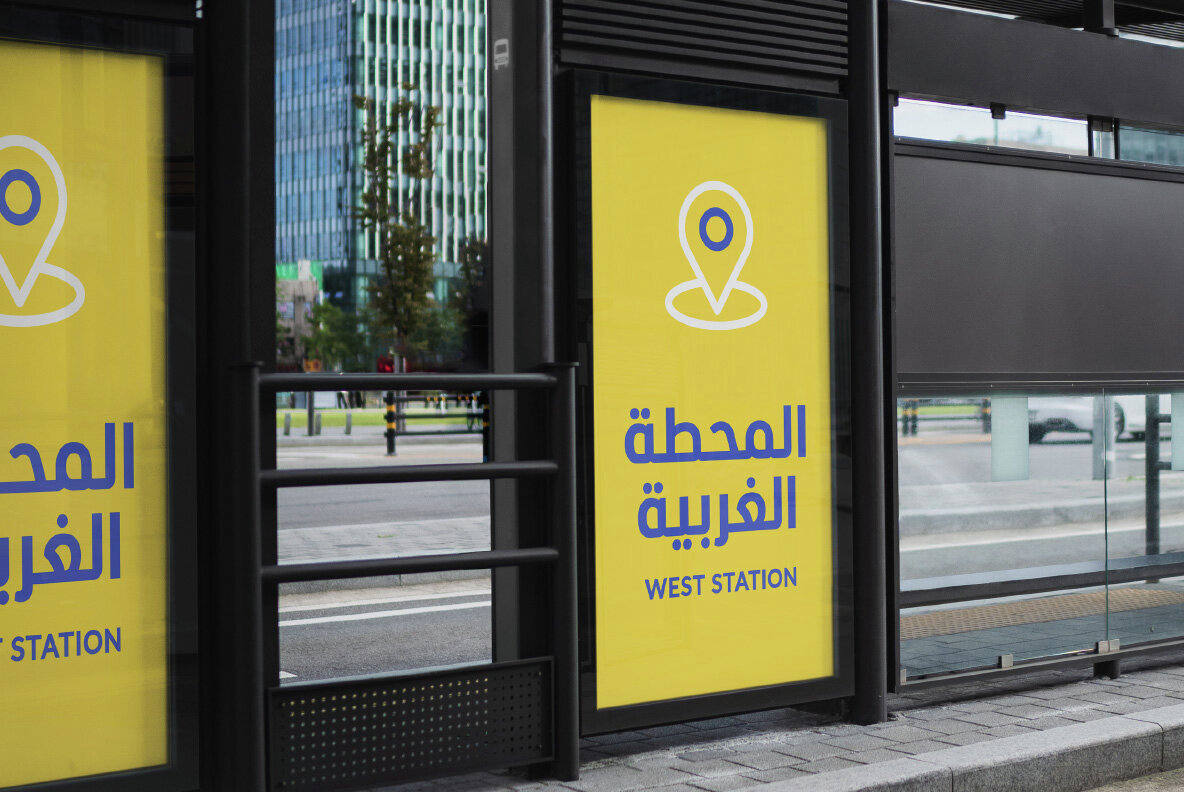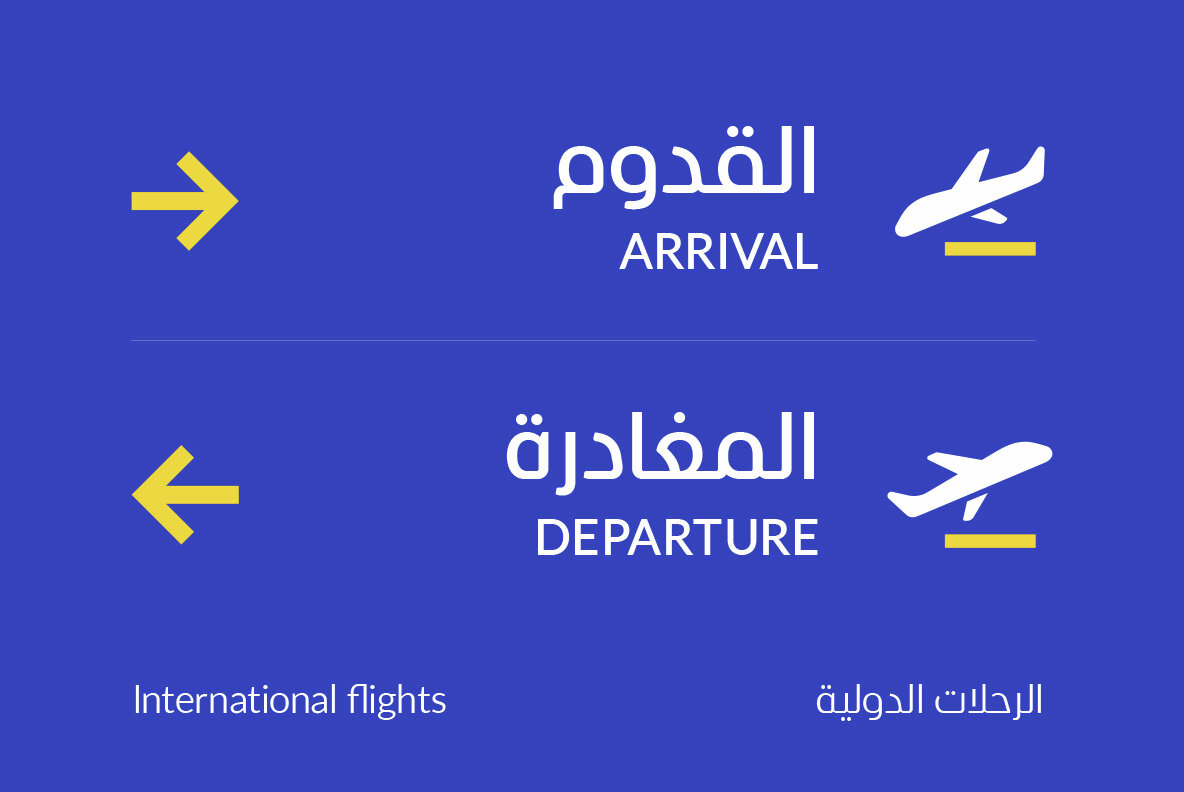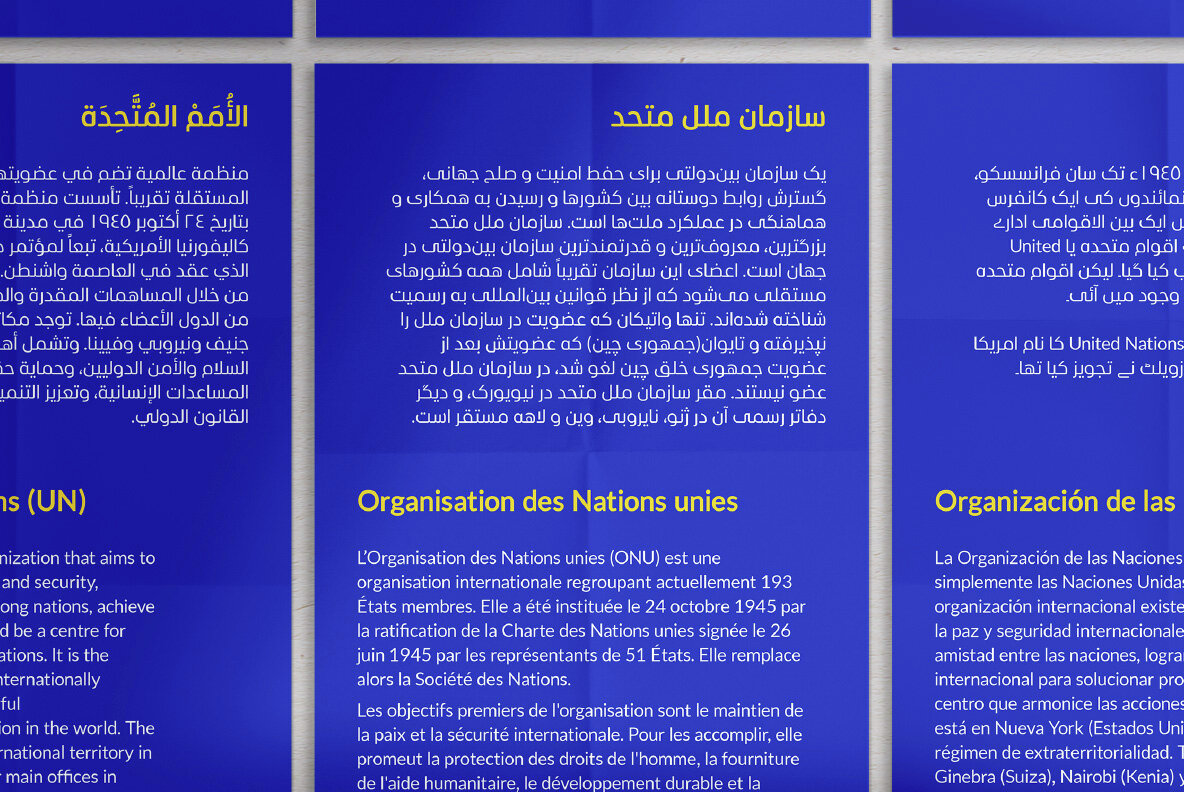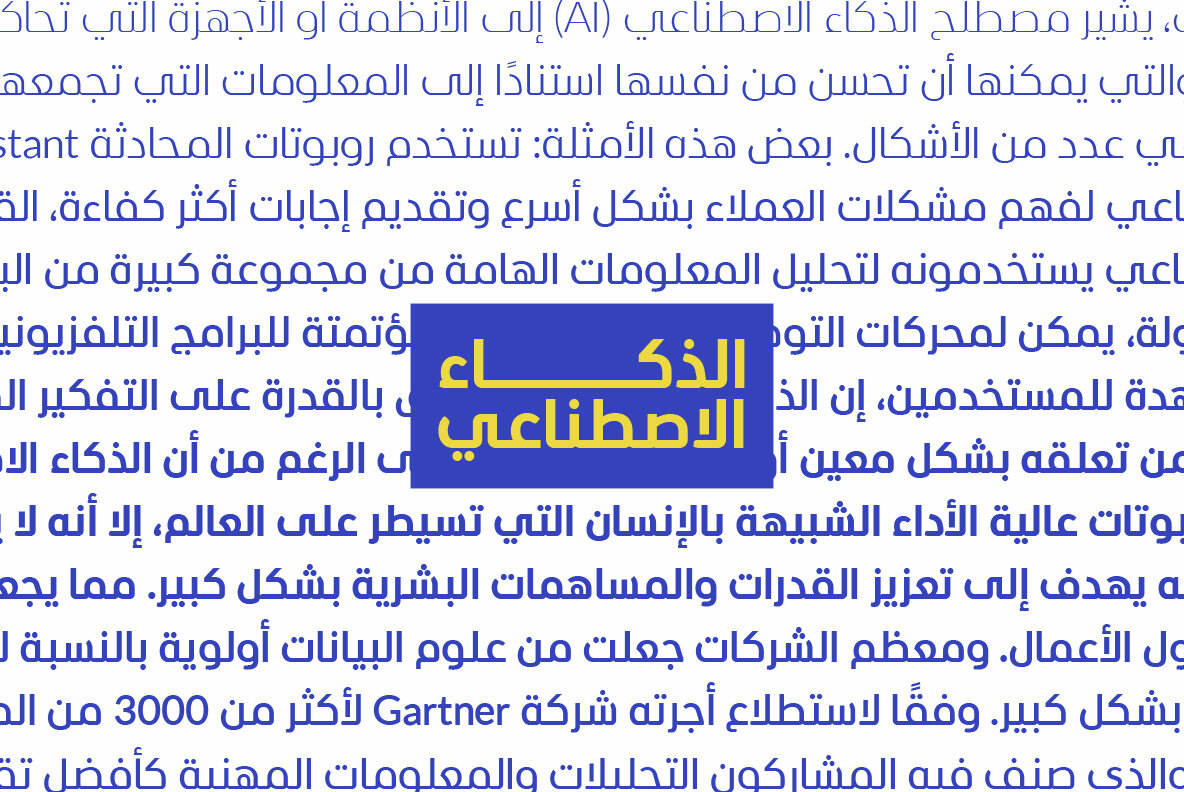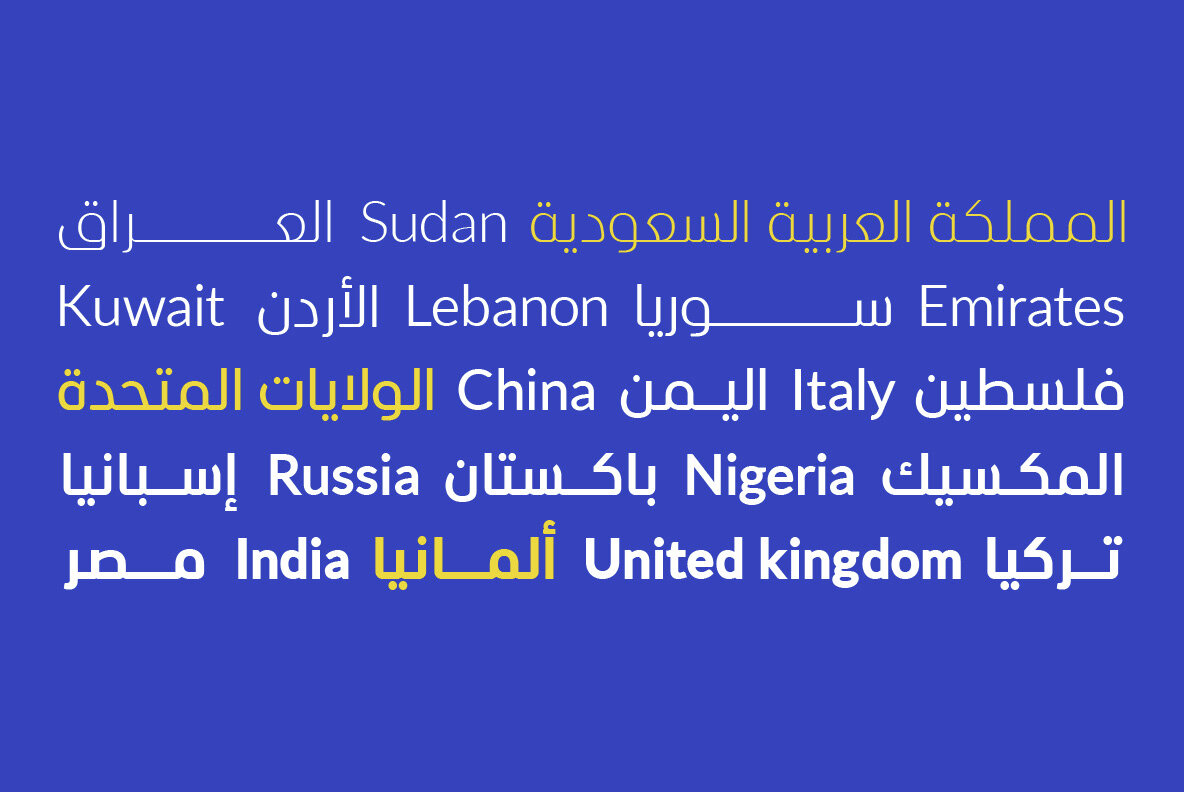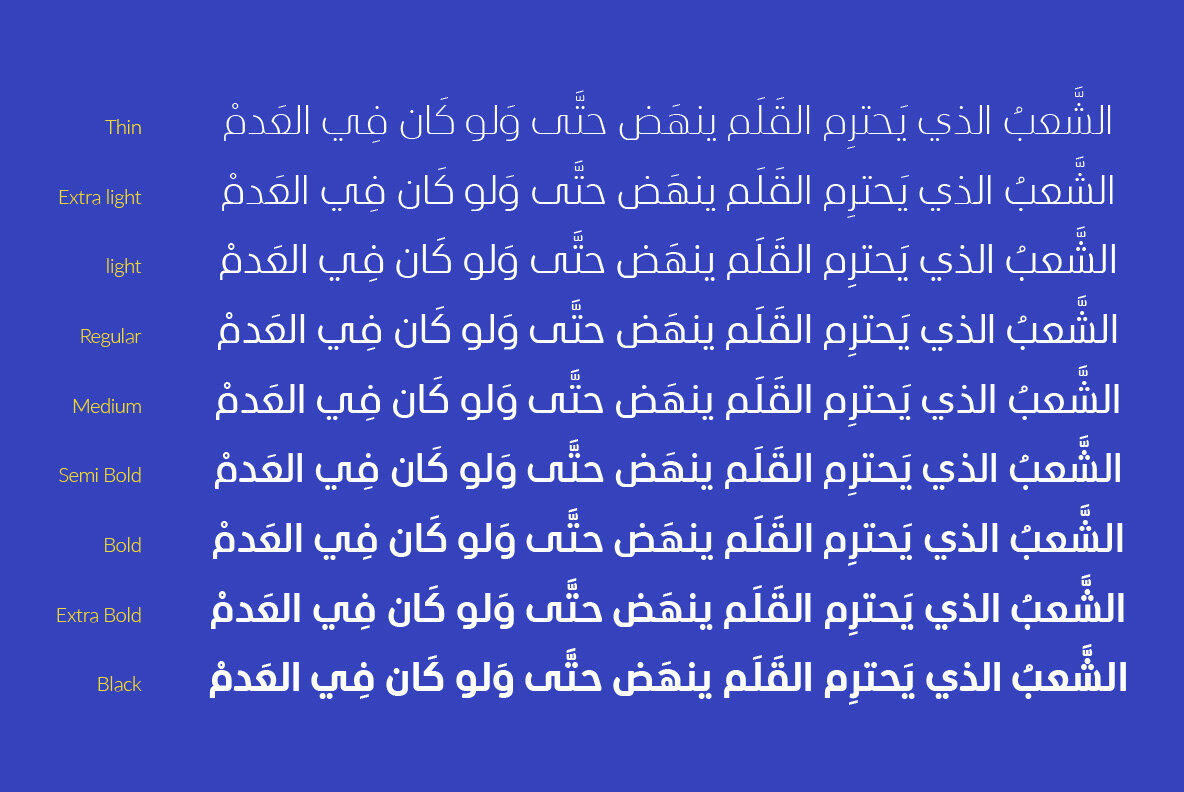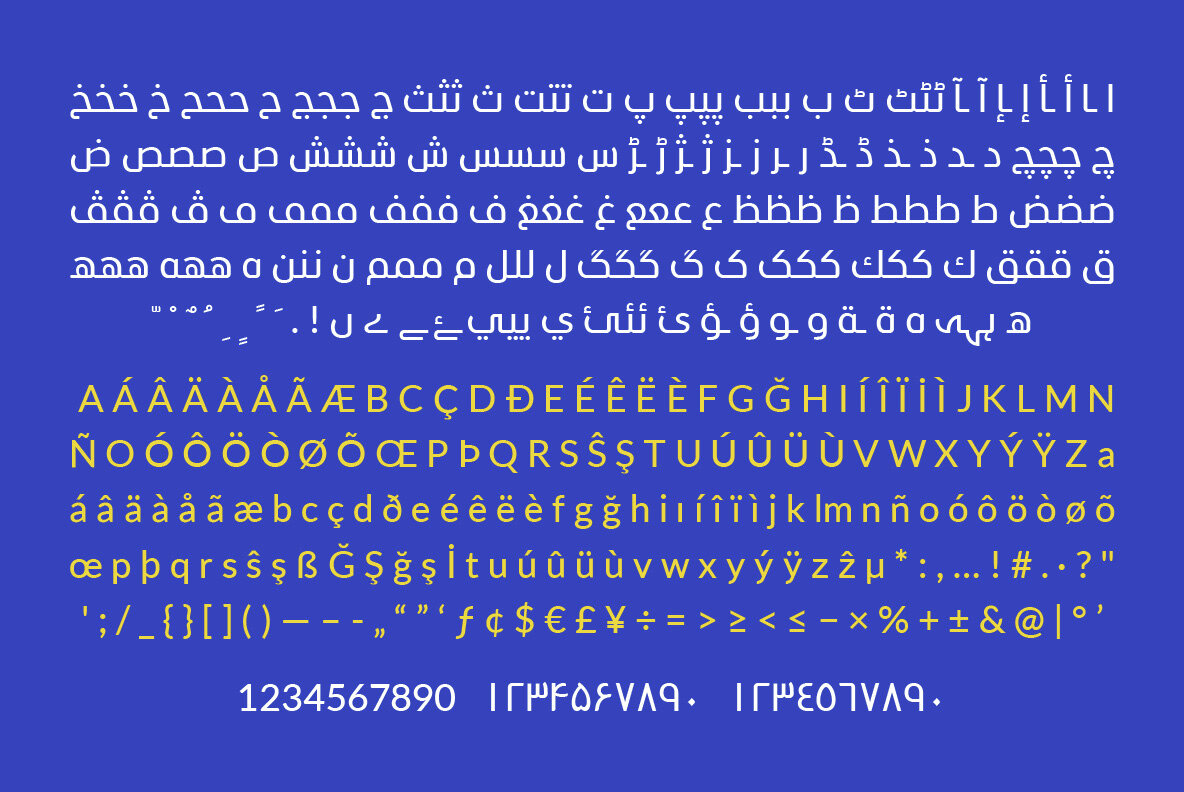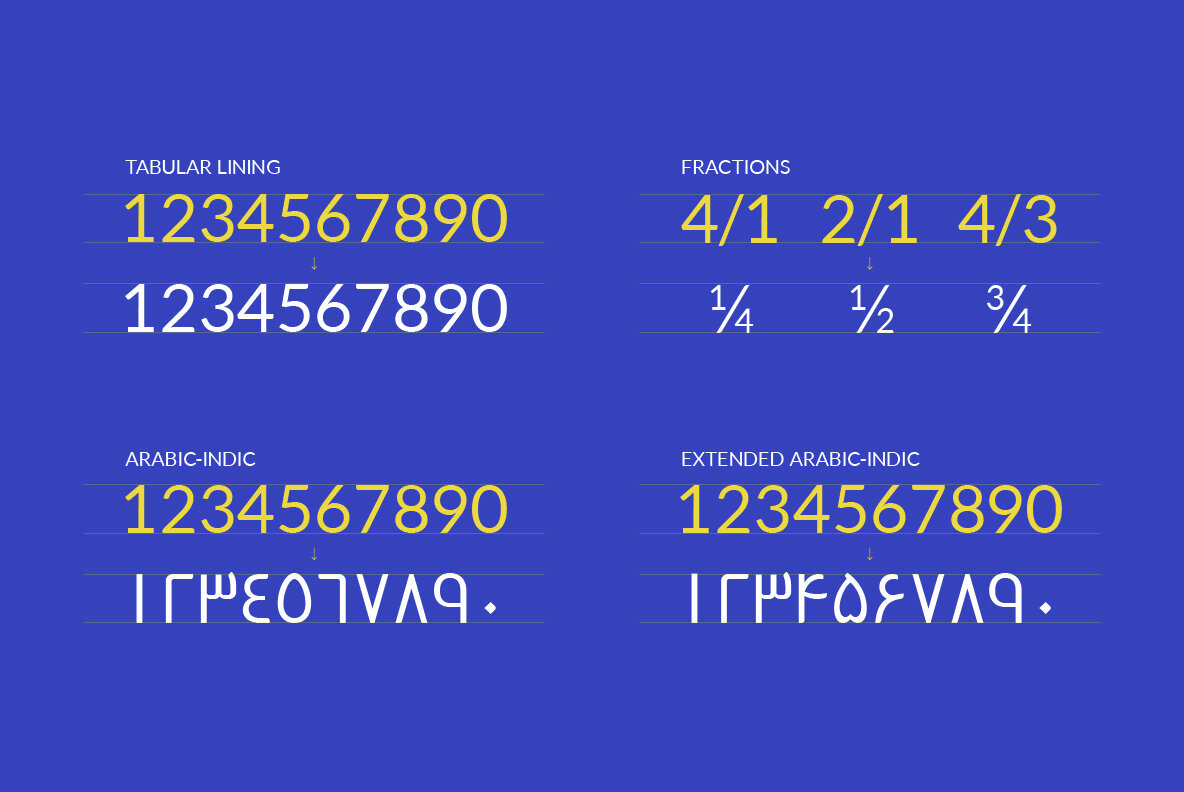
Alilato Arabic Font
Alilato is a modern Arabic typeface family in 9 weights. Alilato is the perfect choice to use in both print and web applications, and alongside its matching Latin typefaces.